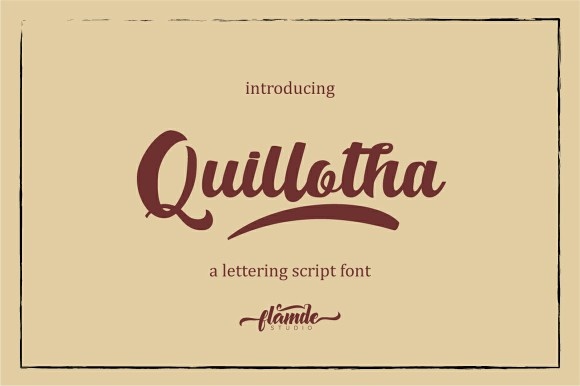
Enter the world of Quillotha Script Font, a mesmerizing script font that will transform your designs into masterpieces. Experience the elegance and charm of handwritten calligraphy, meticulously crafted to evoke emotions and leave a lasting impression. Immerse yourself in the beauty of Quillotha, a script font that captures the essence of artistic expression.
Quillotha is not just a font; it's an artistic journey that ignites your creativity and empowers you to create designs that speak volumes. Its graceful curves, delicate strokes, and authentic handwritten feel will add a touch of sophistication and uniqueness to your projects. Unleash your imagination and let Quillotha guide you towards extraordinary design outcomes.
With Quillotha, you'll discover a font that transcends the ordinary and captivates your audience. Its versatility knows no bounds, making it the perfect choice for a wide range of design projects. From enchanting invitations and heartfelt greeting cards to eye-catching logos and captivating social media posts, Quillotha effortlessly elevates your designs to new heights.
Quillotha's exceptional quality and attention to detail shine through in every letterform. Each stroke and curve has been meticulously crafted to ensure a harmonious visual experience. The font's subtle variations and natural flow create a sense of authenticity that will make your designs stand out.
As a script font, Quillotha excels in conveying personal messages and heartfelt emotions. Its expressive nature adds a touch of warmth and intimacy to your designs, making them more relatable and engaging. Whether you're creating a heartfelt letter, a touching invitation, or a captivating poster, Quillotha will help you communicate your message with sincerity and grace.
Quillotha is more than just a font; it's an invitation to explore the realm of creativity and self-expression. Its versatility and emotional depth make it the perfect choice for designers, artists, and anyone who seeks to create designs that resonate with their audience. Embrace the power of Quillotha and embark on a creative journey that will leave an indelible mark on your designs.